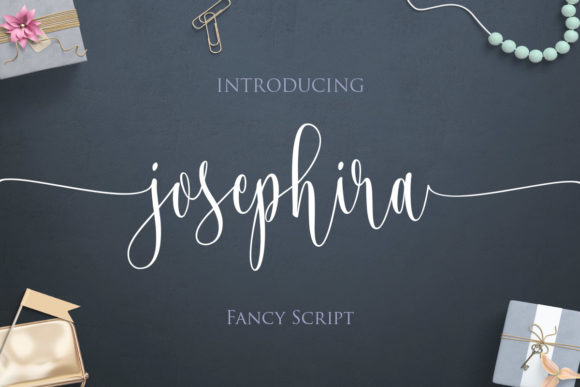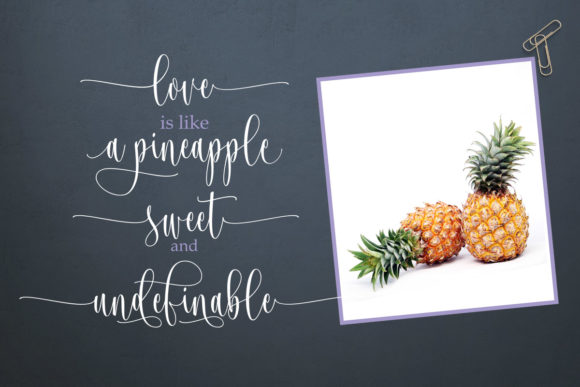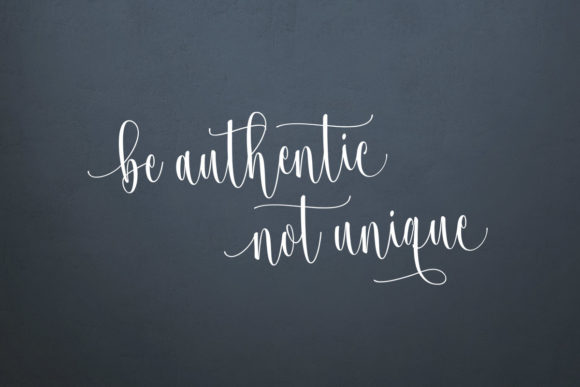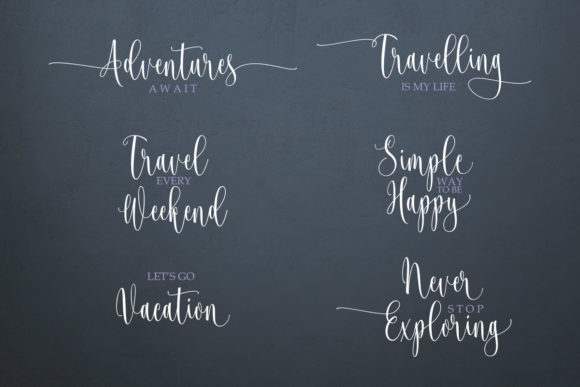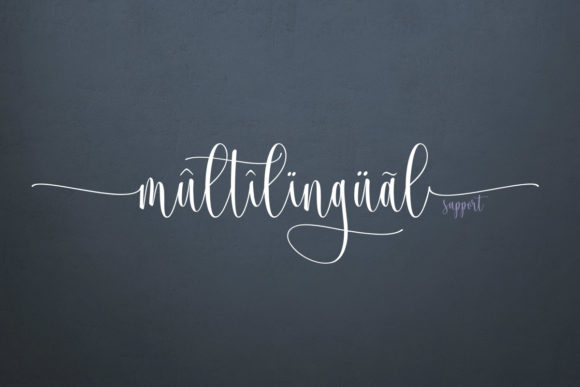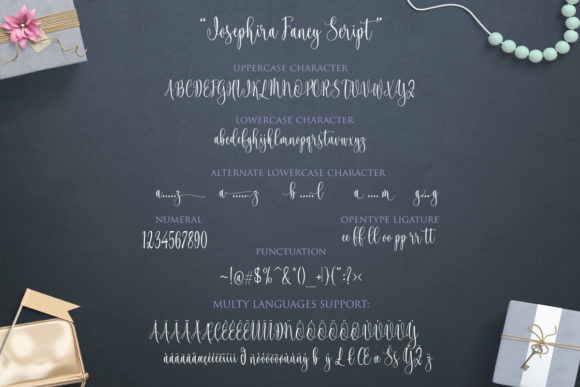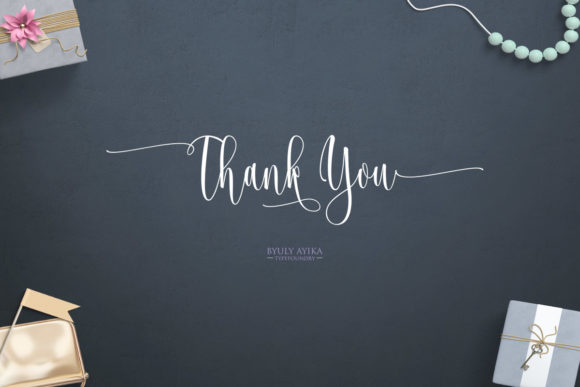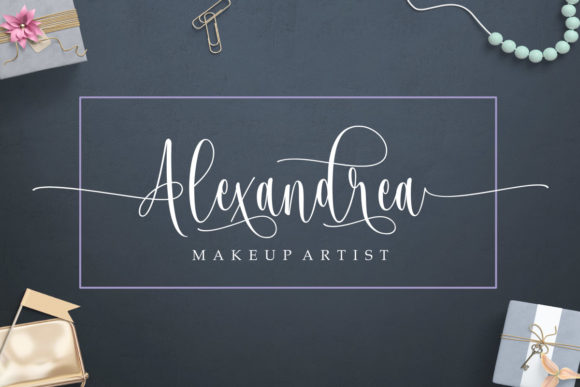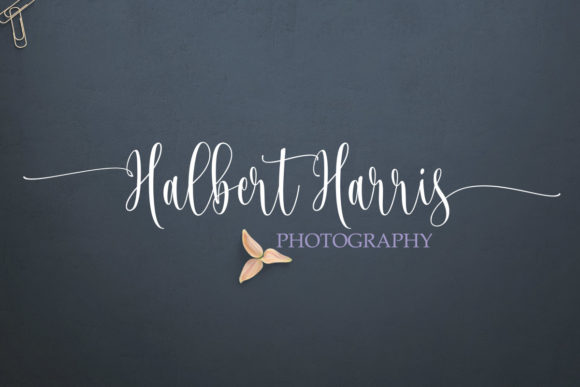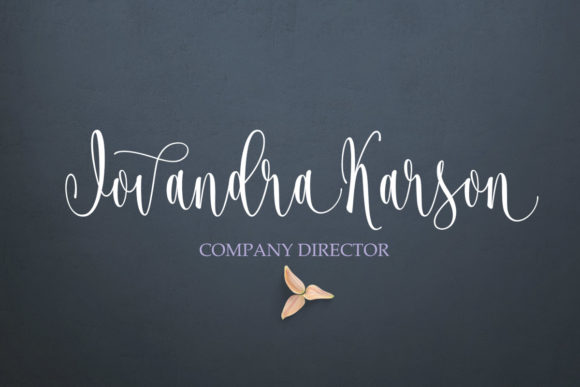
HomeScript FontsJosephira Font Script Fonts Josephira Font FacebookXPinterestWhatsApp Josephira Font Poster 2 Josephira Font Poster 3 Josephira Font Poster 4 Josephira Font Poster 5 Josephira Font Poster 6 Josephira Font Poster 7 Josephira Font Poster 8 Josephira Font Poster 9 Josephira Font Poster 10 Josephira Font Poster 11 Josephira Font Poster 12 Josephira Font Poster 13 Josephira Font Poster 14 Josephira Font Poster 15 About Josephira Font Josephira is a fancy and fun script that will add a personal feel to your next project! DOWNLOAD ON CREATIVE FABRICAThis font is sold and delivered by Creative Fabrica. Font Canyon may earn a commission if you buy through this link. People also explored California Poppy Font Stormy Natasha Font Bloodfear Font Welcome December Font Rachelya Font Raja Basah Font Happy Zone Font Searching for Signal Font Klaris Font 288 0 TagsJosephira Font Previous articleReginald FontNext articleLanoline Font LEAVE A REPLY Cancel reply Comment: Please enter your comment! Name:* Please enter your name here Email:* You have entered an incorrect email address! Please enter your email address here Website: Save my name, email, and website in this browser for the next time I comment. Personal Use Free Ammanda Personal Use Free Read more about this font Charlie Personal Use Free Read more about this font Po Beef Personal Use Free Read more about this font Vivacious Personal Use Free Read more about this font BLOG To increase your work productivity, choose the most readable fonts. In today's fast-paced work environment, where digital communication and information consumption are integral to our daily routines, the choice of fonts can significantly impact... Free Fonts Risk: Why Free Fonts Can Be Dangerous for Designers Top 10 Handwritten Fonts That Elevate Your Designs Fonts That Capture the Spirit of New York City